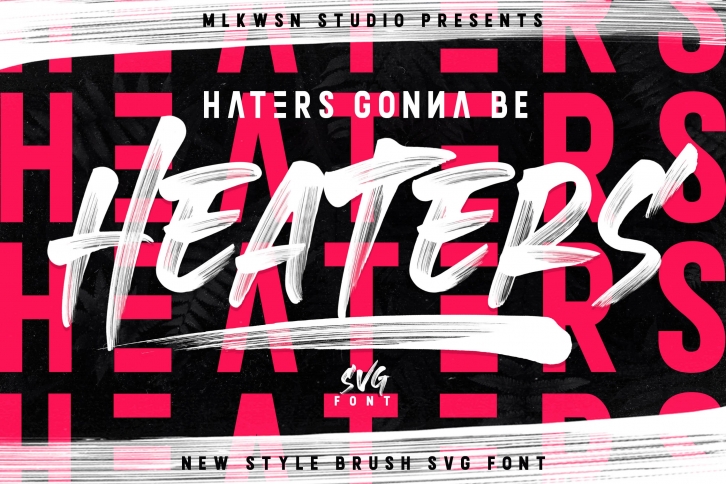
Introducing - New taste Heaters SVG Font Collections
Heaters font preserves all the high definition detail of the original handwritten letters. Using OpenType-SVG technology it truly looks realistic. The OpenType-SVG format requires Photoshop CC 2017 or Illustrator CC 2018 (or newer). Regular OTF format is also included.
Take your design to the up level with a hyper-realistic font that truly looks hand painted. Heaters uses brand new technology that makes way for more authentic looking fonts and is sure to grab the attention of customers and designers alike.
uses actual images and transparency effects in order to get the quality that you see. This is all made possible thanks to the latest developments of the OpenType-SVG format, and the integration of that technology into Photoshop CC 2017 and Illustrator CC 2018. Heaters installs like any other font, and can be used in any color, on any background. Check out the example video to see everything this font can do!